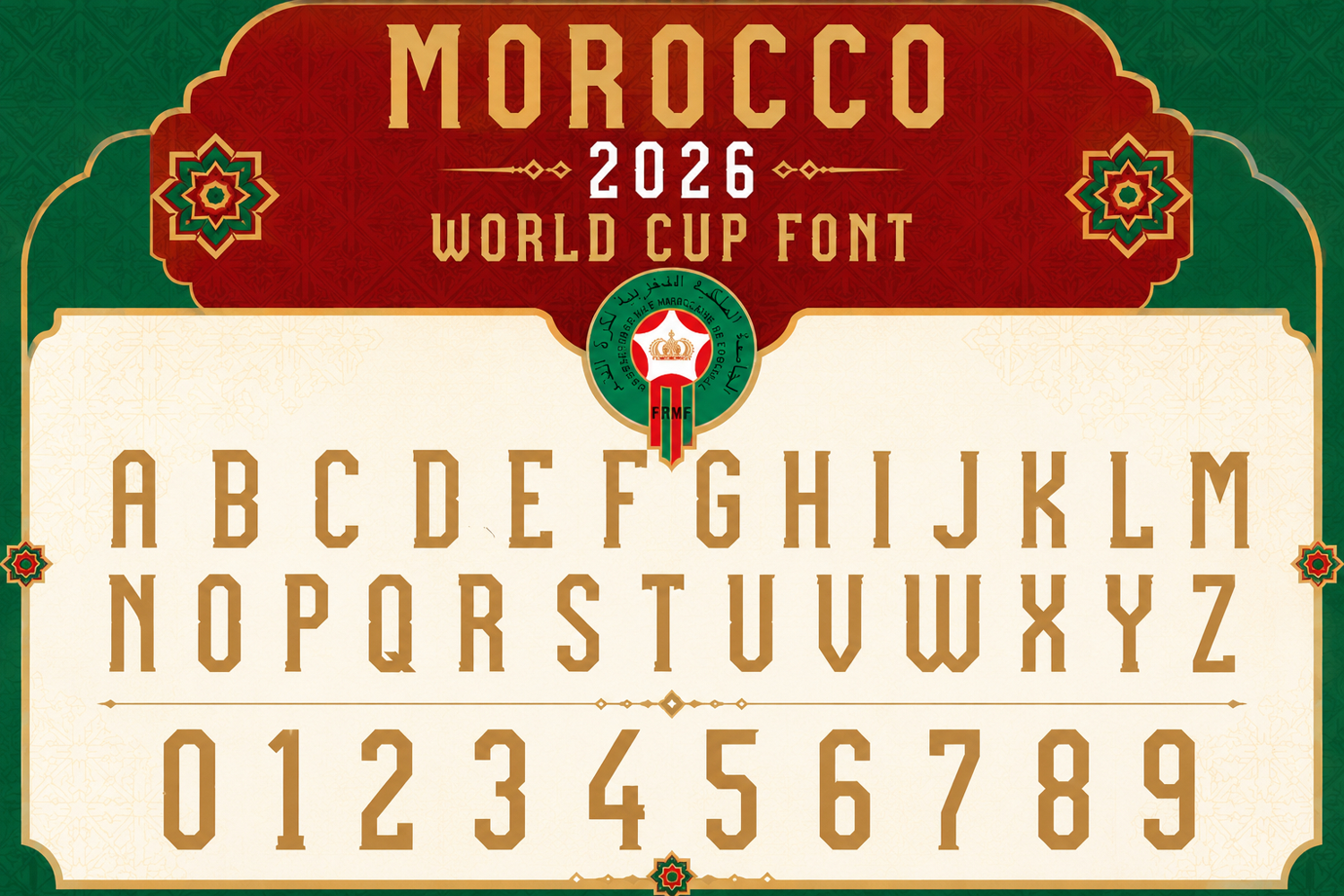
Morocco Puma World Cup 2026 Font Jersey Font
PUMA 26 FRONT Numbers
PUMA26
Football jersey font package for custom soccer shirts, player names, and numbers. Includes home and away style previews for World Cup-inspired kit design, sublimation printing, fan apparel, sports branding, and editable football mockups.